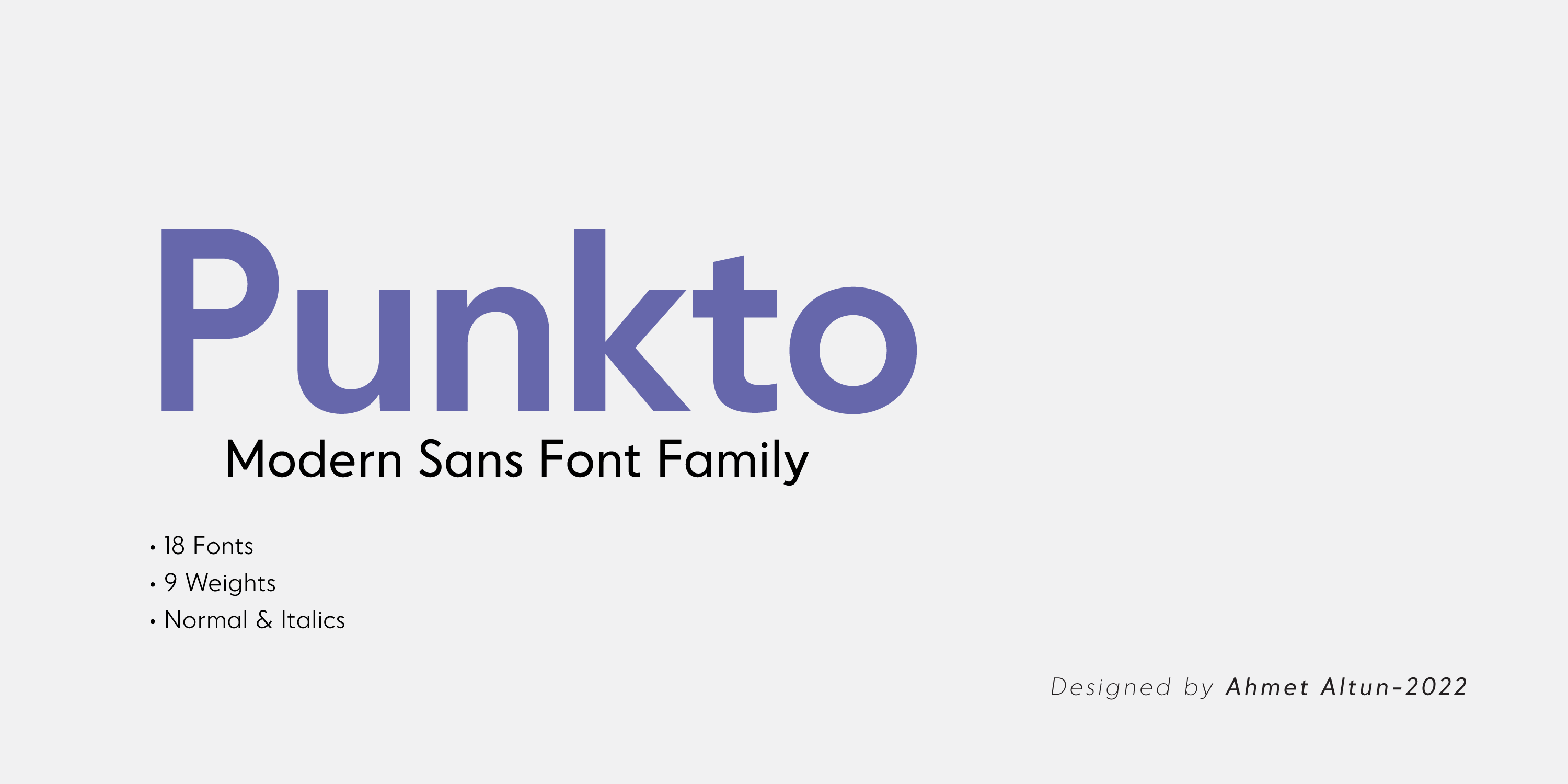
Unleash boldness and creativity with Punkto Font Free Download, a sharp and dynamic sans-serif typeface designed for modern design projects that demand attention. Its angular letterforms and clean lines make it perfect for branding, tech startups, editorial layouts, and poster designs.
Punkto Font delivers a confident, contemporary vibe with excellent readability and striking geometric shapes. Whether you're creating a logo, social media graphics, or packaging, this font adds a powerful and distinctive voice to your visuals.